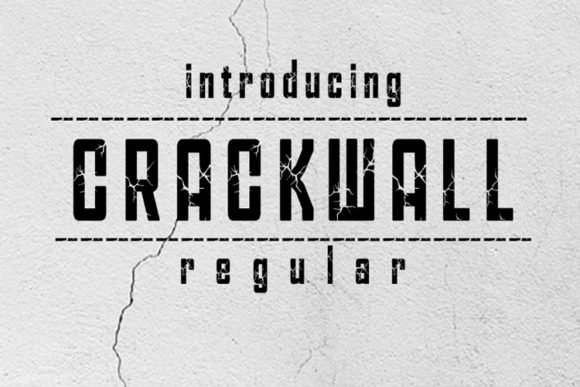
The Perfect Imperfection: Unlocking the Power of Crackwall Font
Have you ever stared at a blank canvas, struggling to find the perfect font to bring your design to life? You know the feeling – it’s like searching for a missing piece of a puzzle. But what if I told you that the perfect imperfection is just around the corner? Enter the Crackwall Font, a striking display font that’s been handmade with love and a dash of creativity.
Designed to stand out from the crowd, the Crackwall Font is perfect for branding, logos, posters, t-shirts, book covers, and any other design that needs to make a statement. Its unique crack effect adds a touch of raw, handmade charm that’s impossible to replicate with digital fonts. Whether you’re a seasoned designer or just starting out, the Crackwall Font is a valuable addition to your toolkit.
Key Features of Crackwall Font
- Font Family: Crackwall Font is a sans-serif typeface designed for use in digital and print media.
- Font Size: The font family includes 6 weights ranging from Light to Black, each with its own unique characteristics.
- Unique Characteristics: Crackwall Font features a distinctive geometric design with clean lines and a minimalist aesthetic, making it ideal for modern designs and branding.
Crackwall Font Review
Overall, I think Crackwall Font is a solid choice for designers looking for a modern, distressed look. ✨ Here are some things that work well:
- Unique texture: The distressed texture gives the font a unique, eye-catching feel that’s perfect for headings or titles.
- High contrast: The bold, thick lines and sharp edges make the font stand out, even at small sizes.
- Customizable: The font comes in a range of styles and weights, making it easy to customize to fit your design needs.
- Limited legibility: While the distressed texture is visually appealing, it can make the font harder to read at smaller sizes or in certain contexts.
- May not be suitable for body text: The font’s bold, chunky lines may be overwhelming for large blocks of text.
- Not as versatile as other fonts: While the font is great for headings or titles, it may not be the best choice for other design elements, such as paragraphs or captions.
Overall, I think Crackwall Font is a great addition to any designer’s toolkit, but it’s not a one-size-fits-all solution. With a little creativity and experimentation, you can use this font to create some truly eye-catching designs.
Getting the Most Out of Crackwall Font
To get the most out of Crackwall Font, use it in bold or italic styles to add emphasis to your text.
Also, use it in conjunction with other fonts to create a unique and visually appealing design.
Crackwall Font is commonly used in:
Graphic design projects, such as posters and flyers.
Brand identity projects, such as logos and business cards.
Editorial projects, such as magazines and newspapers.